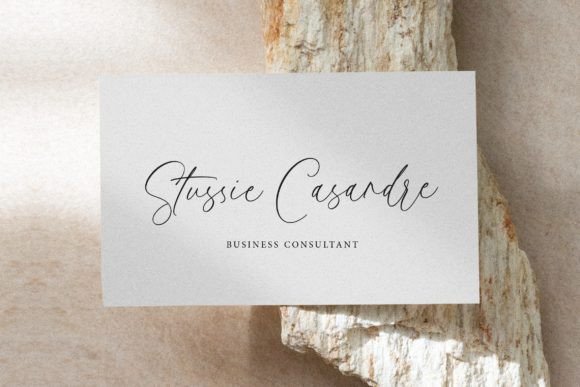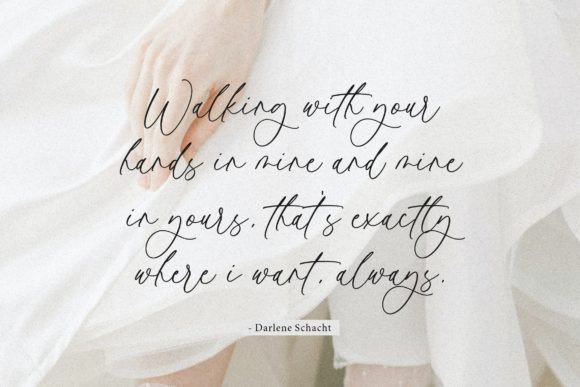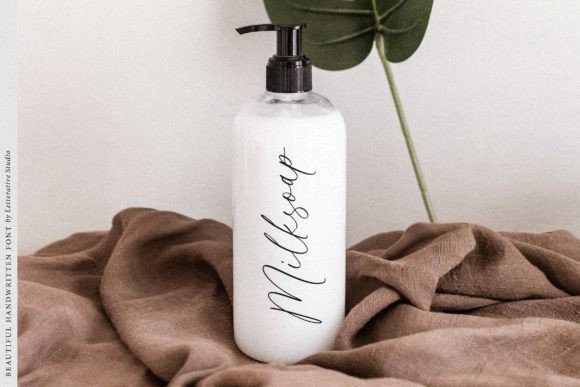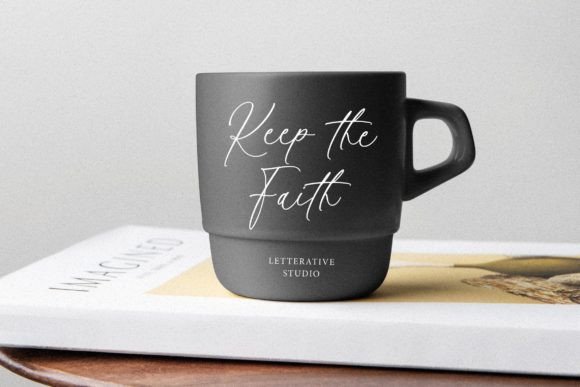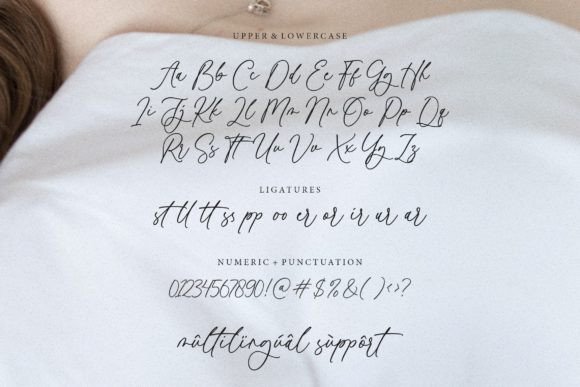
Introduction to Palmeras Font Font
Fonts play a crucial role in design, and the Palmeras Font font is a typeface that brings both character and versatility to any project. Whether you’re working on a branding project, a website, or a print design, the Palmeras Font font offers a unique style that can elevate your work.
Palmeras is a Beautiful Handwritten font.
Ideal for elegant logos, wedding stationery, websites, personal branding, and any other projects requiring a handwritten and luxurious touch .
Key Features of Palmeras Font Font
Why Choose Palmeras Font Font?
The Palmeras Font font is more than just a typeface – it’s a design tool that helps you communicate your message with style and clarity. Its unique character set and versatile design make it suitable for a wide range of applications, from elegant invitations to bold headlines.
With its carefully crafted letterforms and balanced proportions, the Palmeras Font font ensures readability and visual appeal across all mediums.
What makes Palmeras Font font special?
The Palmeras Font font stands out with its unique design, exceptional readability, and versatility across various design applications.